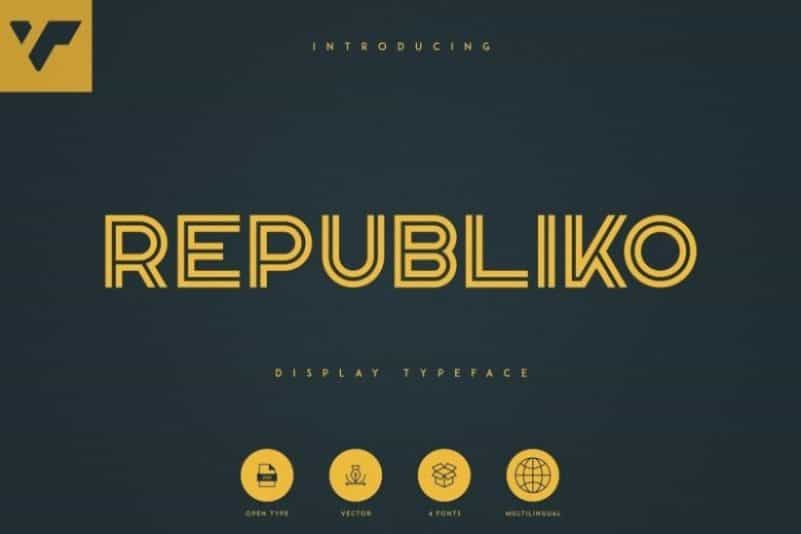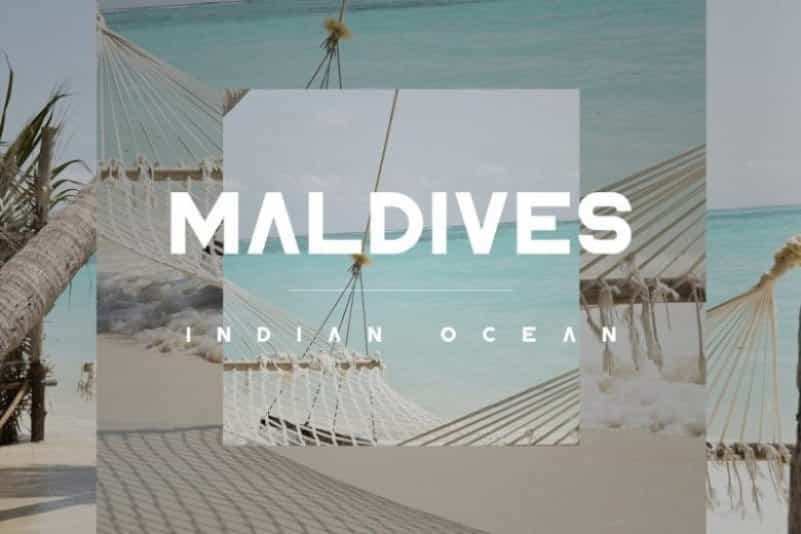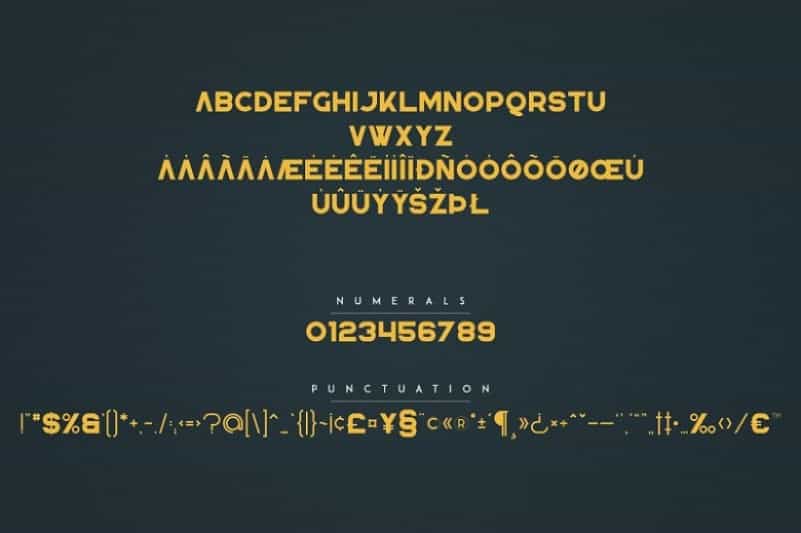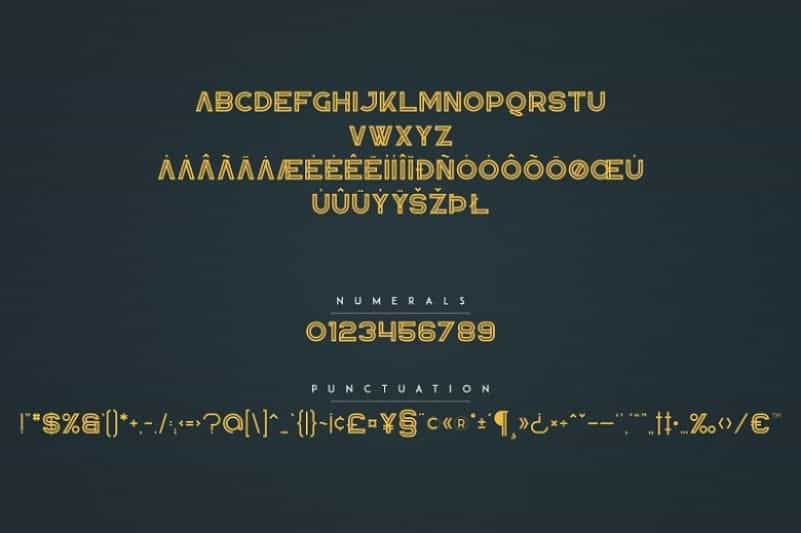
Republiko is a solid and stylish display typeface. inspiration by today’s prevailing design concept, which is the answer to any idea you can think of. With each character in this thick stylized font solidly sculpted as though it had its own soul.